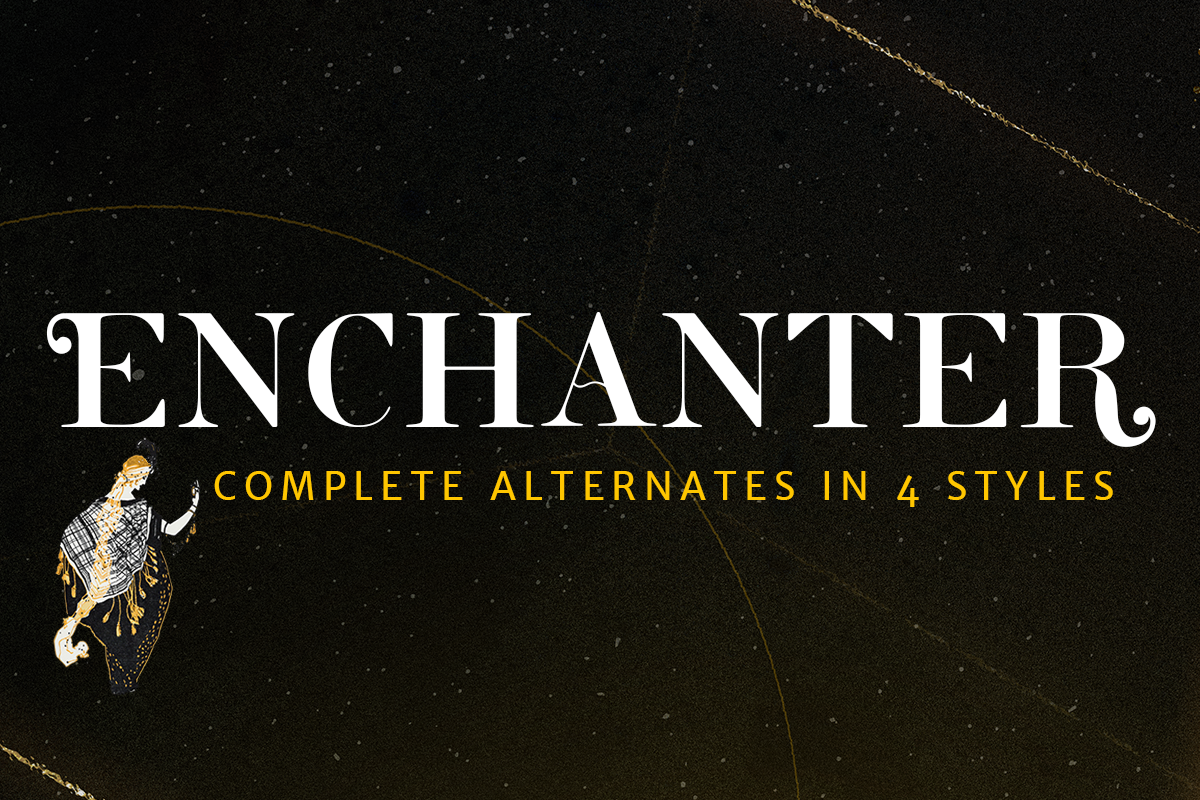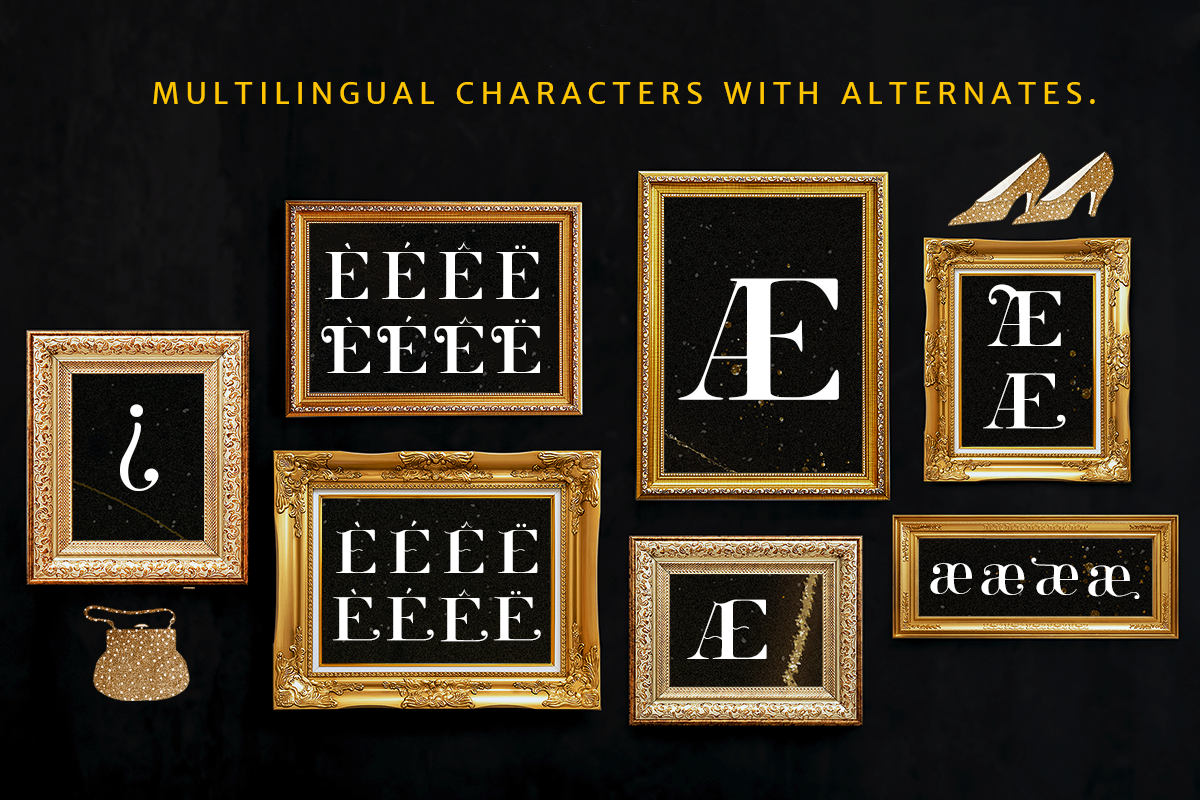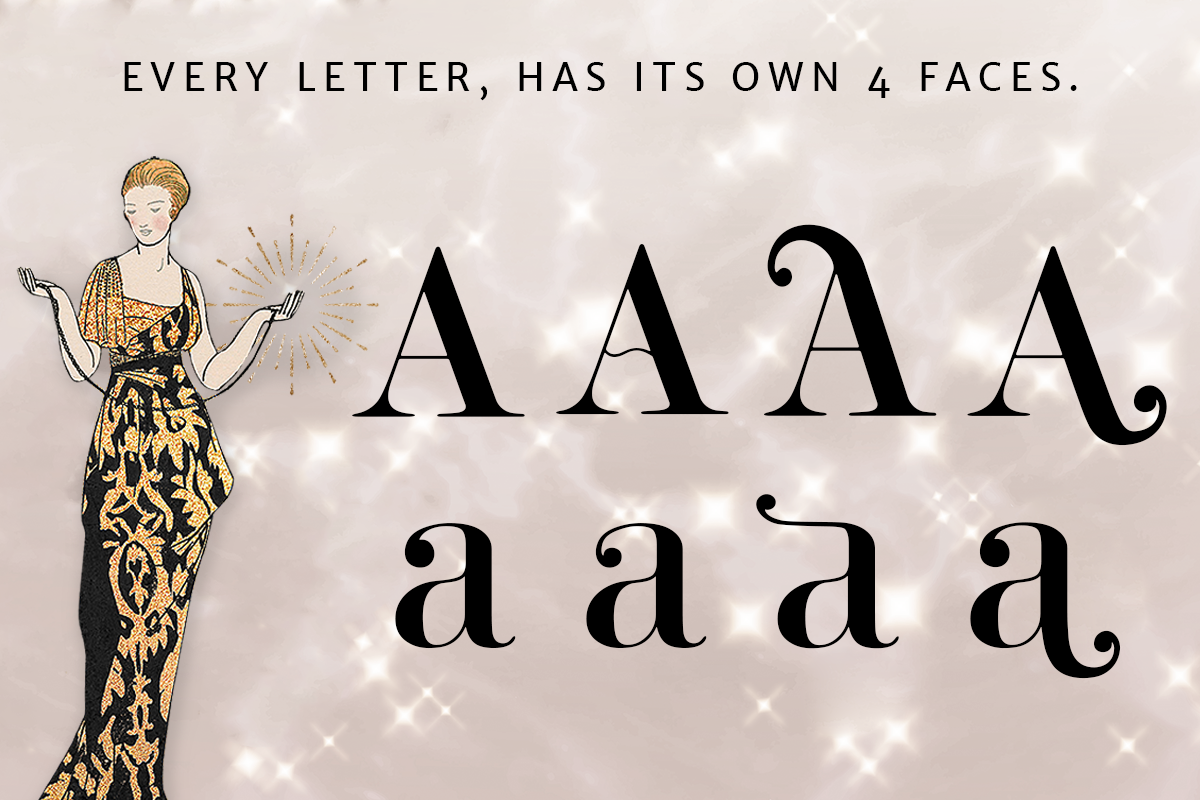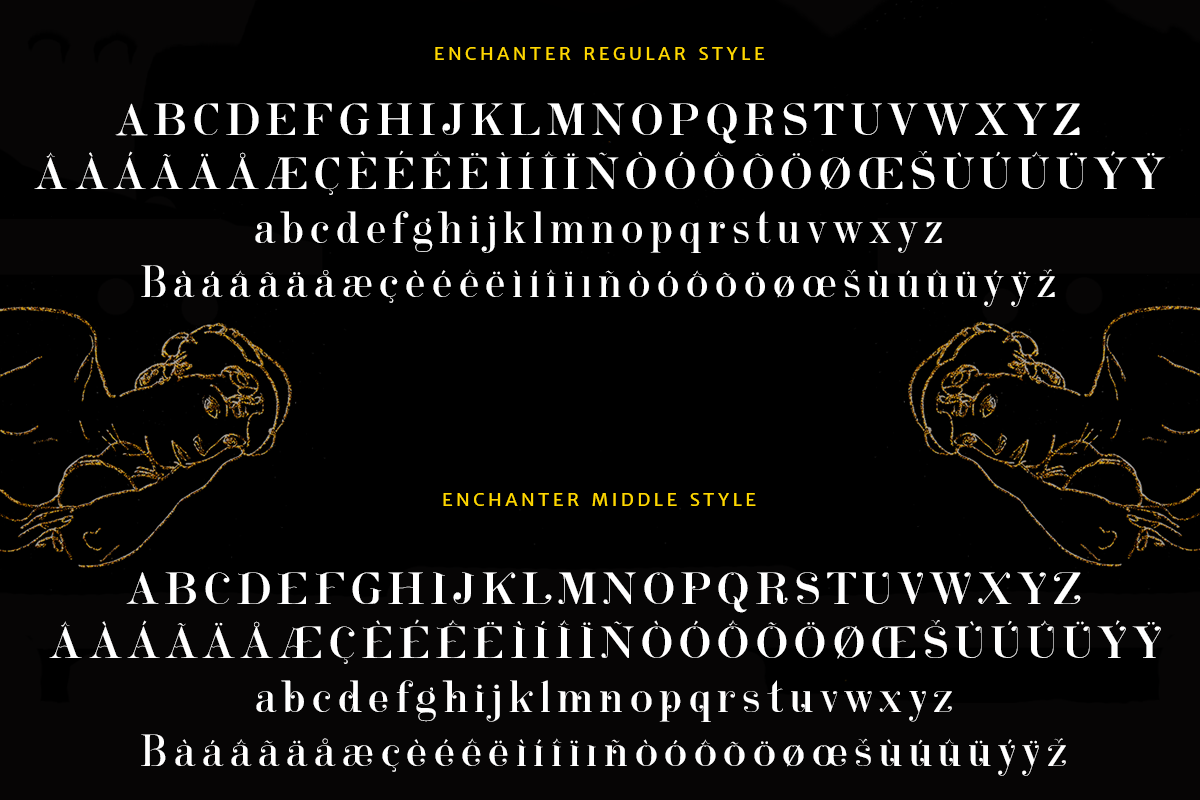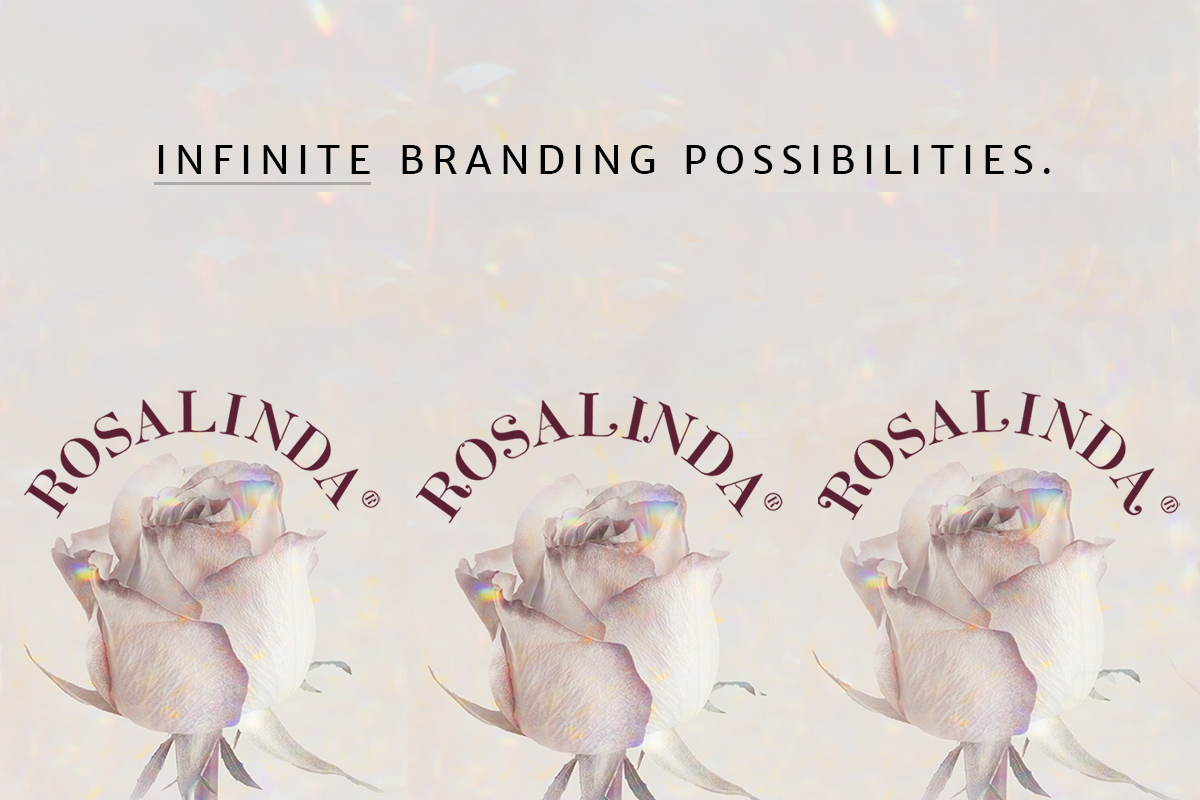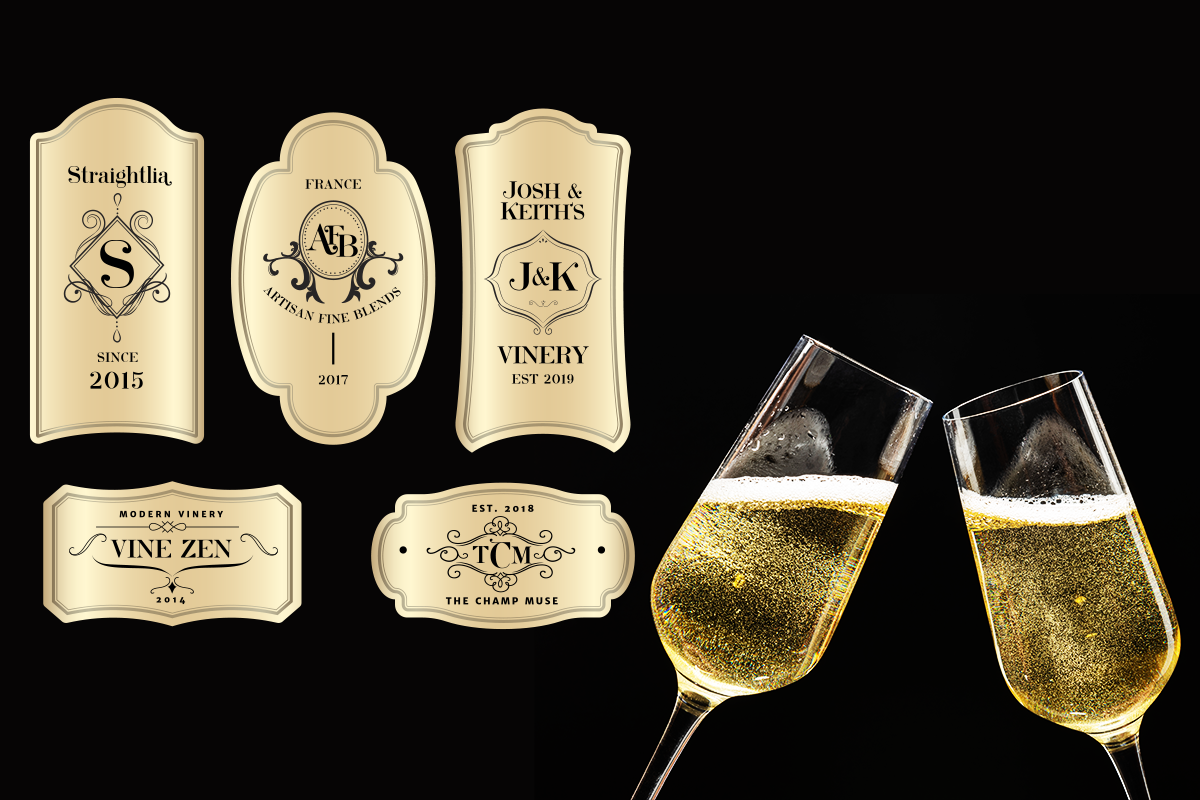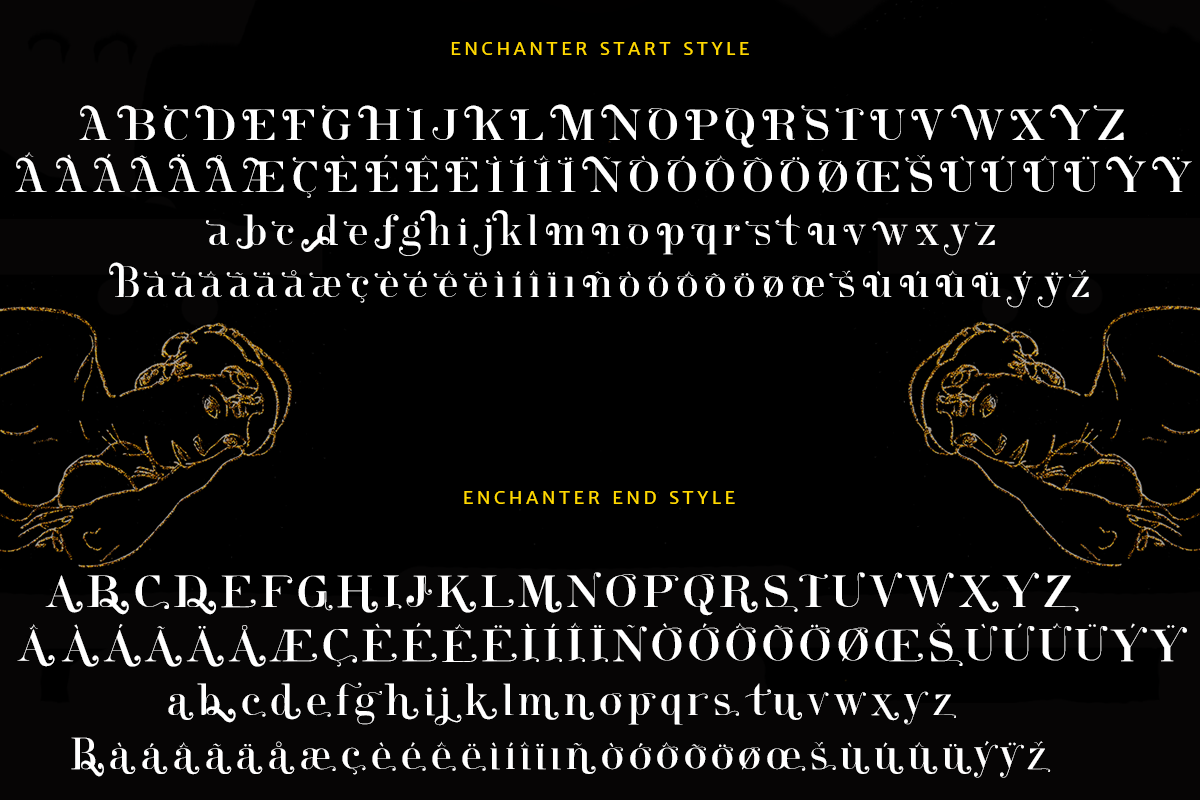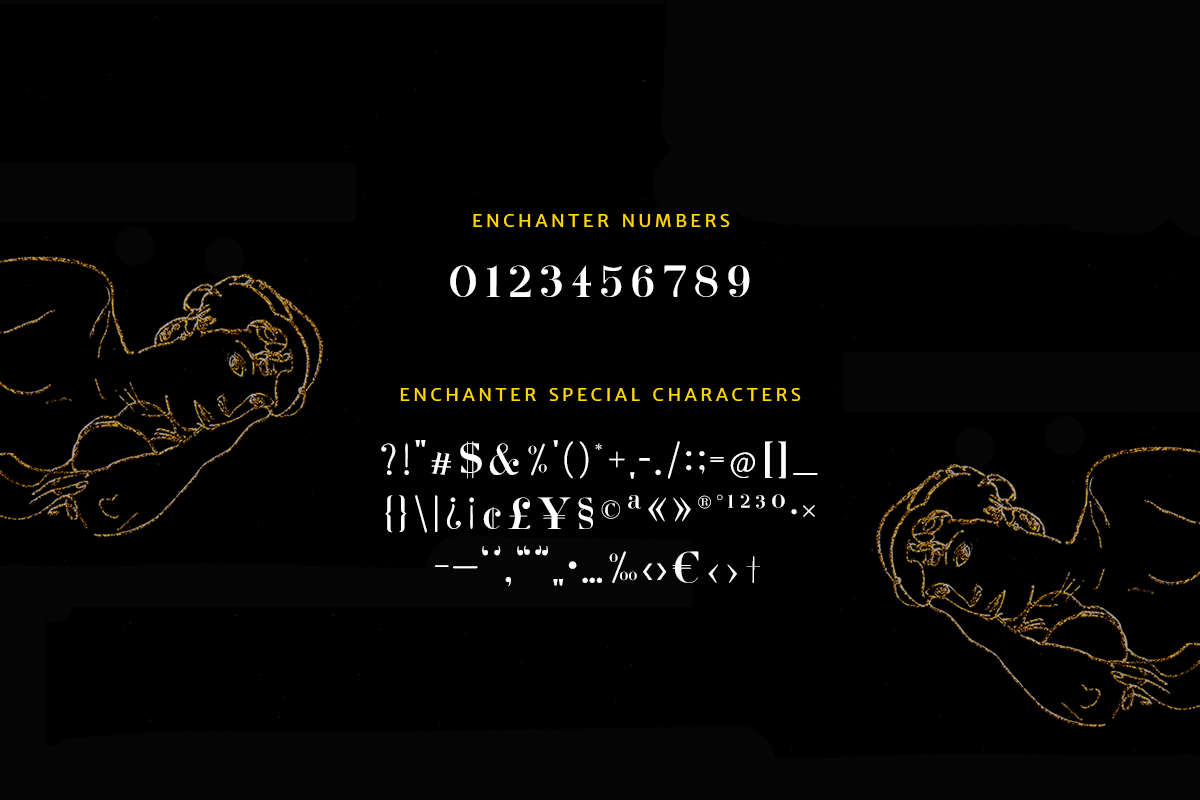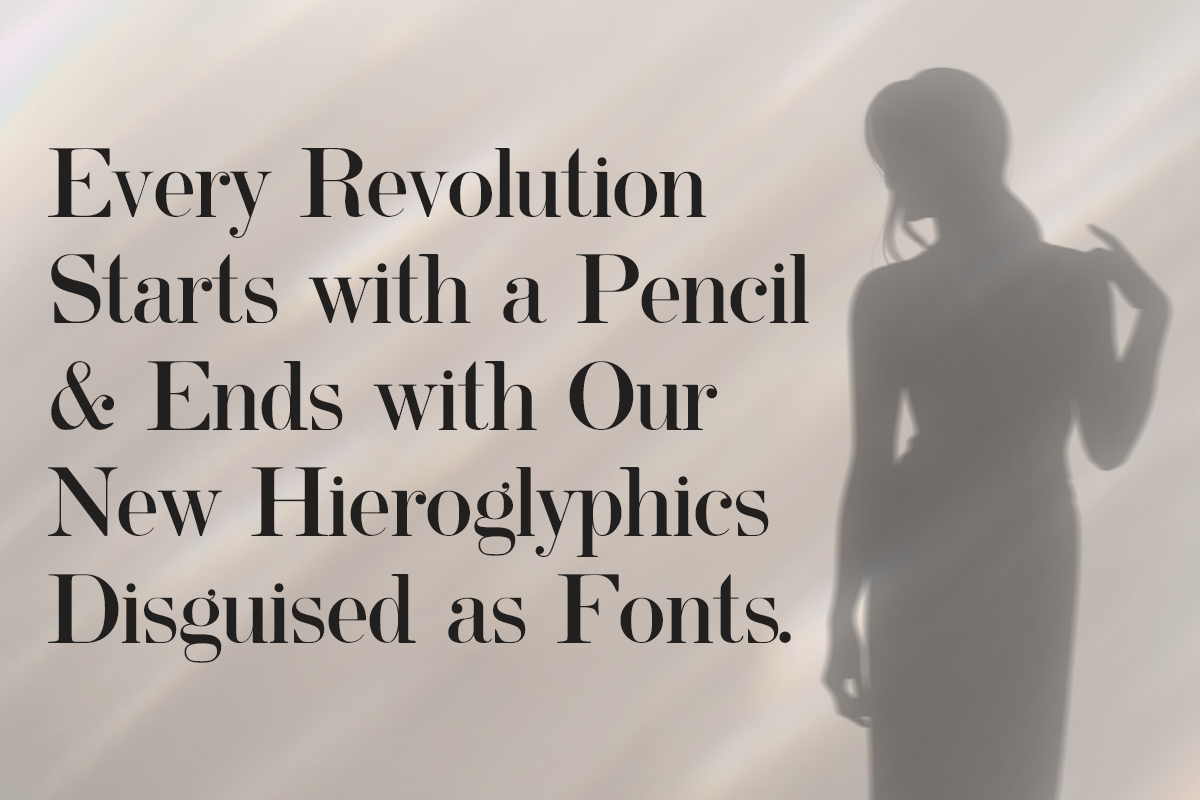
Enchanter Deluxe Modern Art Font
Complete multilingual support, the premium collection of a designer's dream. Each character has four different alternates, including multilingual letters!
Meet Enchanter, a new sans serif typeface of the 21st century. It has modern serif letter accents and comes with complete alternates in four different styles for all of its letters including the multilingual ones. It's a very versatile font that works as standalone or paired with other fonts. It is a great design choice for branding, logo, labels, packaging, magazine headers & so much more.
- 4 Varieties of Alternates (all letters)
- Weight - Regular
- Lowercase & Uppercase
- Modern Artistic Alternates
- Multilingual Characters
- Language Supported: Western Europe